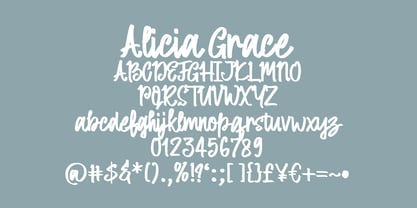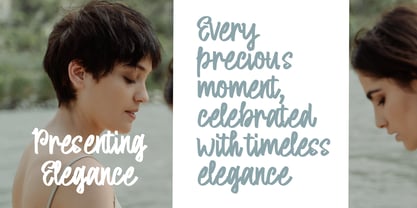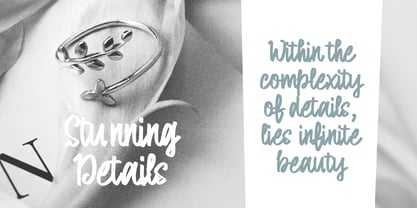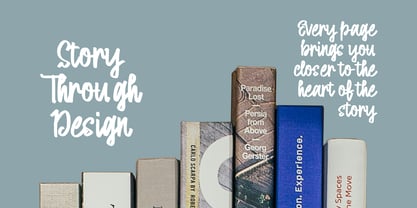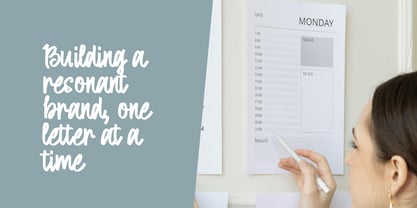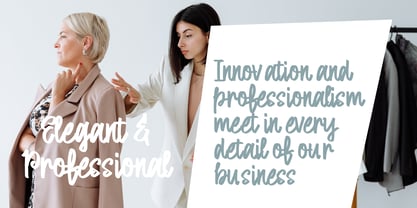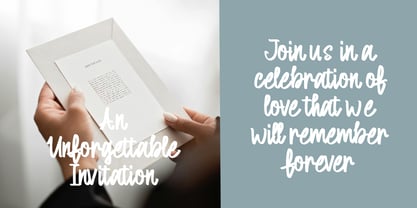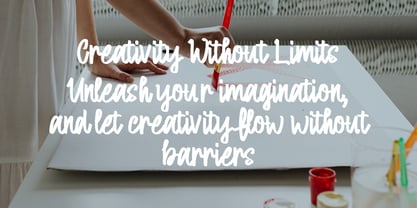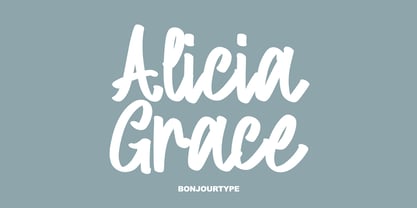
Alicia Grace
by BonjourType
The Alicia Grace Font Family was designed by Rachma and published by BonjourType. Alicia Grace contains 1 styles. More about this family
Alicia Grace is a bold modern brush script font with an expressive handwritten style and energetic character. Featuring organic brush strokes and playful letterforms, this font delivers a casual, creative, and eye-catching look for a wide range of design projects.
Perfect for headlines, logos, branding, social media graphics, posters, product packaging, t-shirts, labels, merchandise, and modern display designs. Its dynamic shapes and strong readability make Alicia Grace stand out while maintaining a warm handmade feel.
With a stylish and artistic personality, Alicia Grace brings a fun, friendly, and contemporary touch to creative visuals and branding projects.
Designers: Rachma
Foundry: BonjourType